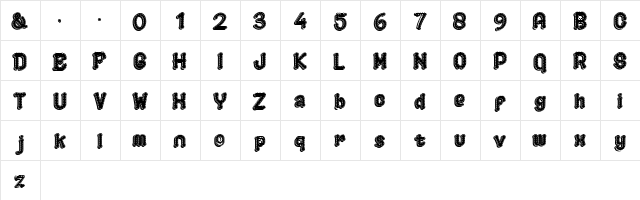
PLAYGROUND 3D Regular
Design Context for PLAYGROUND 3D Typeface
PLAYGROUND 3D softens its letterforms with rounded terminals, giving it an approachable, friendly quality that works well in consumer-facing and digital contexts.
A natural fit for tech startups, health and wellness brands, children's products, and friendly consumer apps.
Font Pairing: Pairs well with a rounded or humanist sans for body copy, maintaining the friendly tone without relying on PLAYGROUND 3D to carry extended reading.
Pro Tip: Pair PLAYGROUND 3D with a geometric sans for a balanced system — the rounded softness works as a warm counterpoint to harder-edged companions.